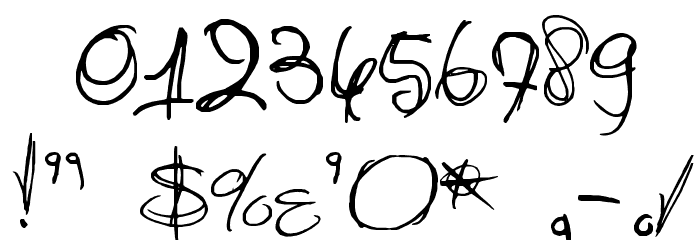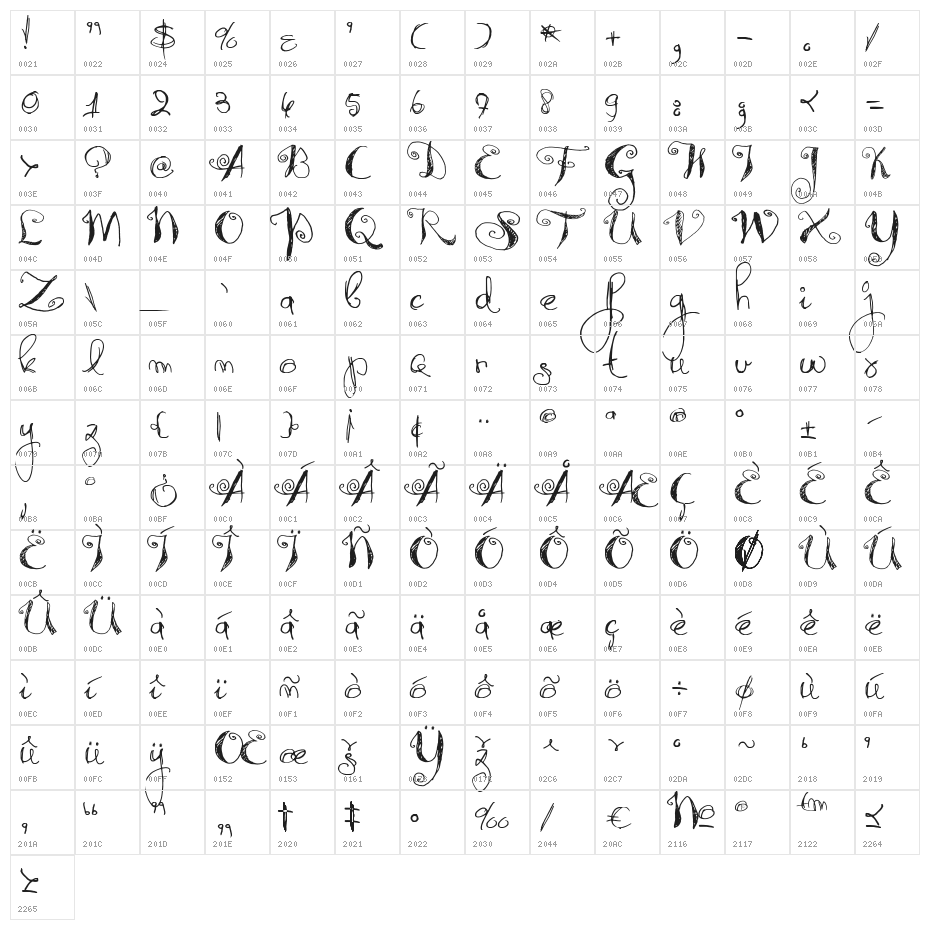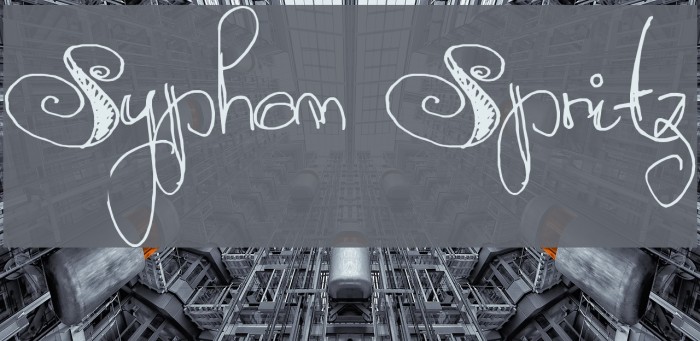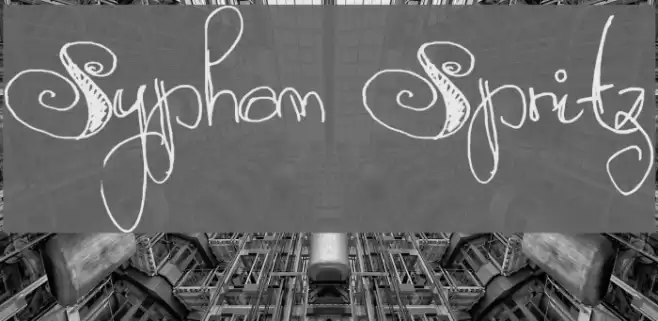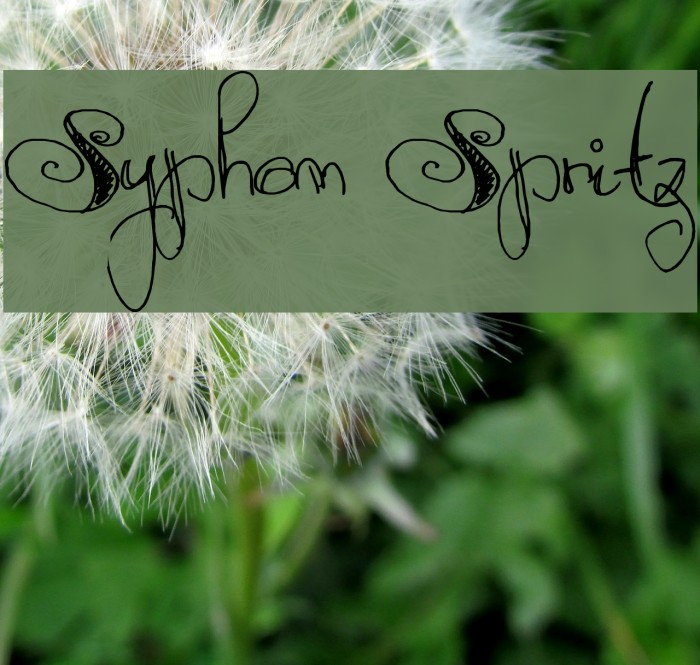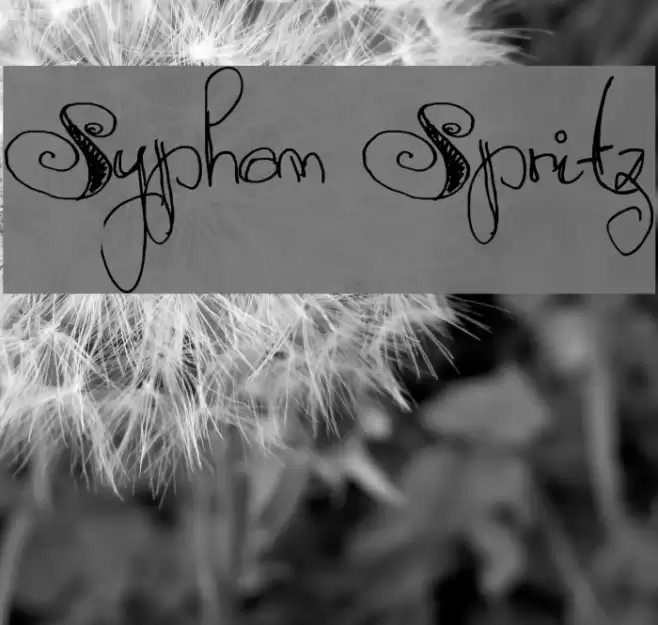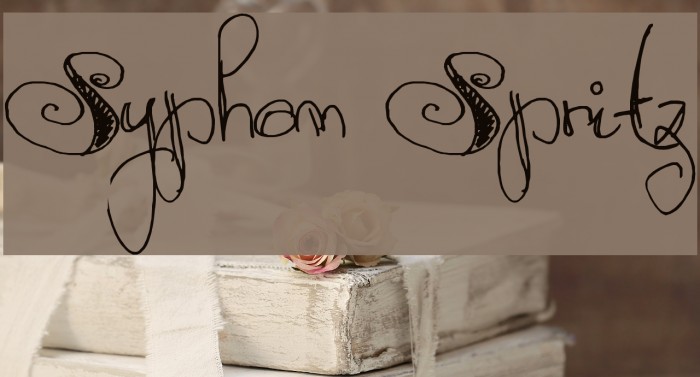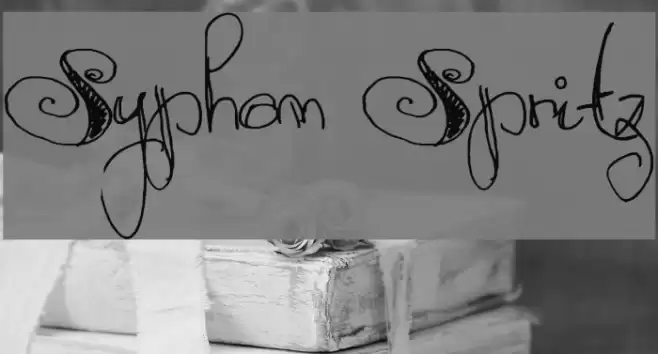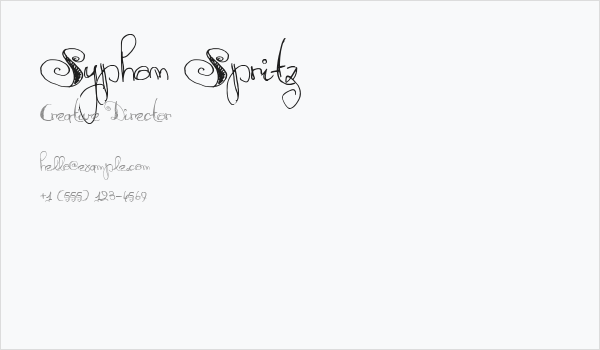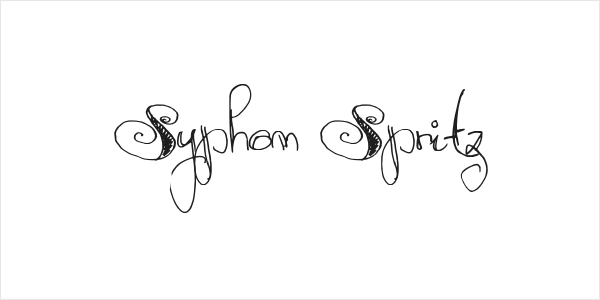
Syphon Spritz Font
Syphon Spritz Description
This font features an intricate and whimsical design, characterized by its elaborate swirls and curls that embellish each letter. The uppercase letters are particularly ornate, with decorative loops and flourishes that give them a playful yet sophisticated appearance. The lowercase letters maintain a similar style, though slightly more restrained, allowing for better readability. Numbers and special characters are equally adorned with unique embellishments, making them stand out. The overall aesthetic is reminiscent of a fairy tale or fantasy theme, making it ideal for creative and artistic projects.
Use CaseLogos, Headlines, Artistic projects
Proposed ProjectsPerfect for fantasy-themed designs, invitations, greeting cards, and artistic projects.